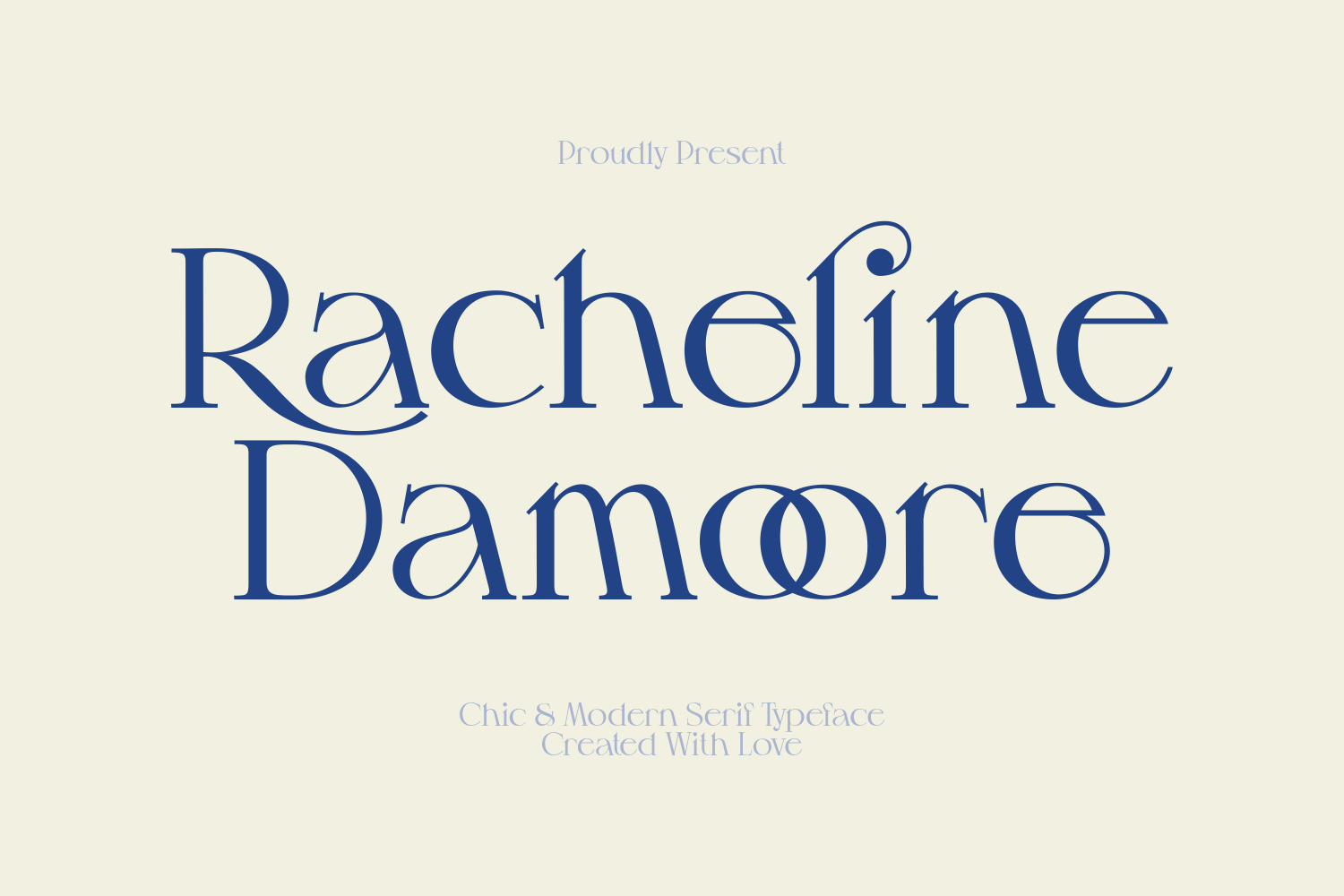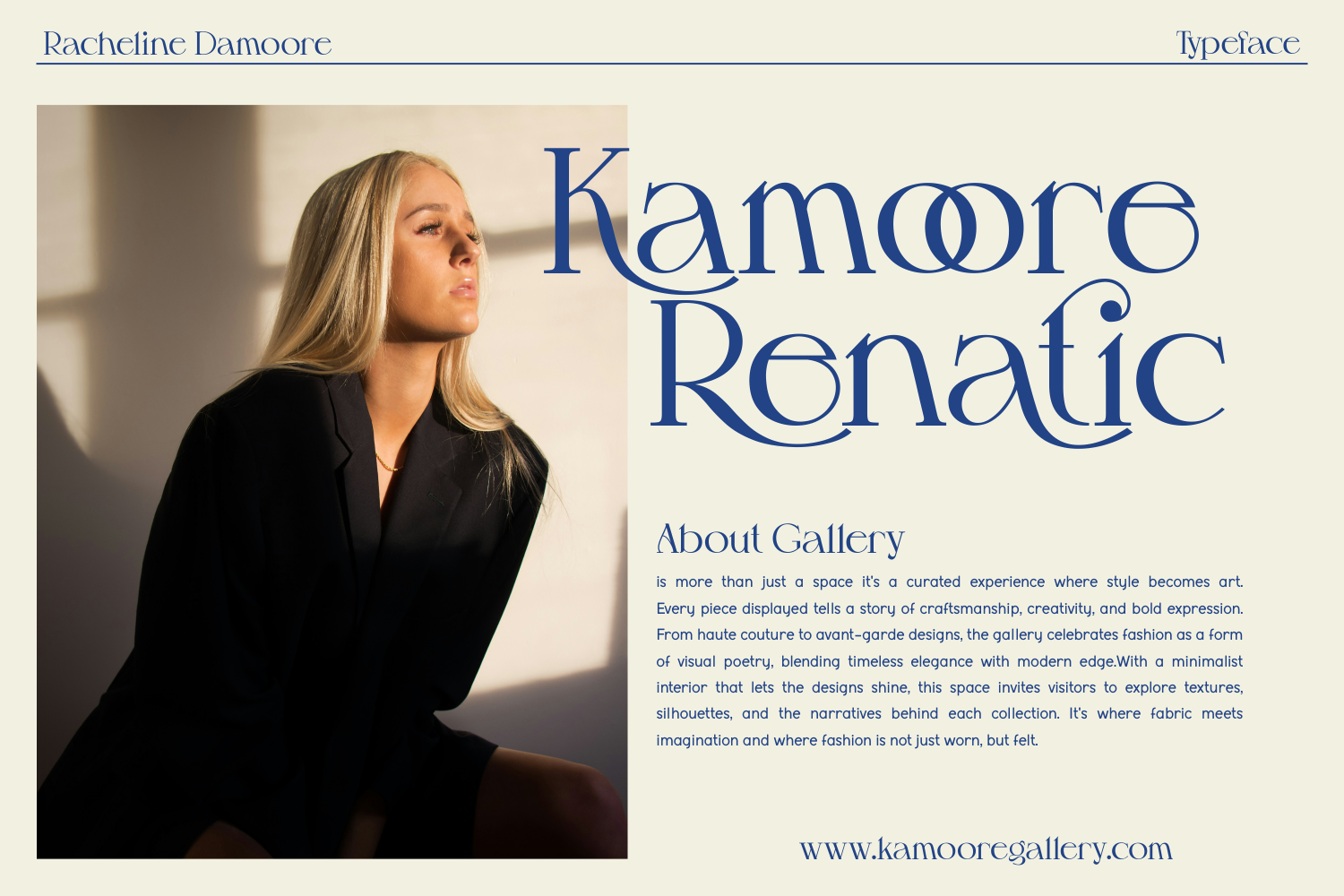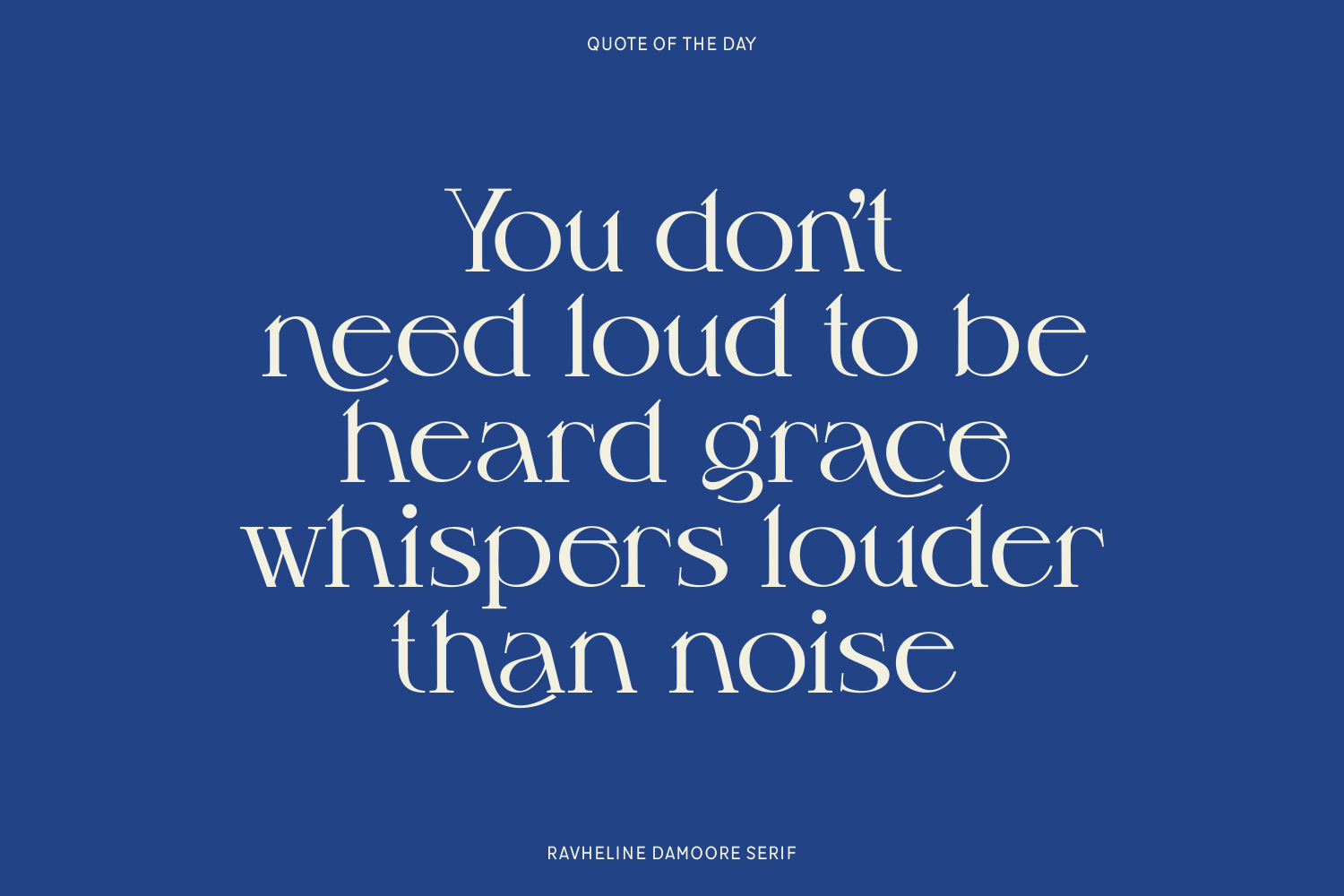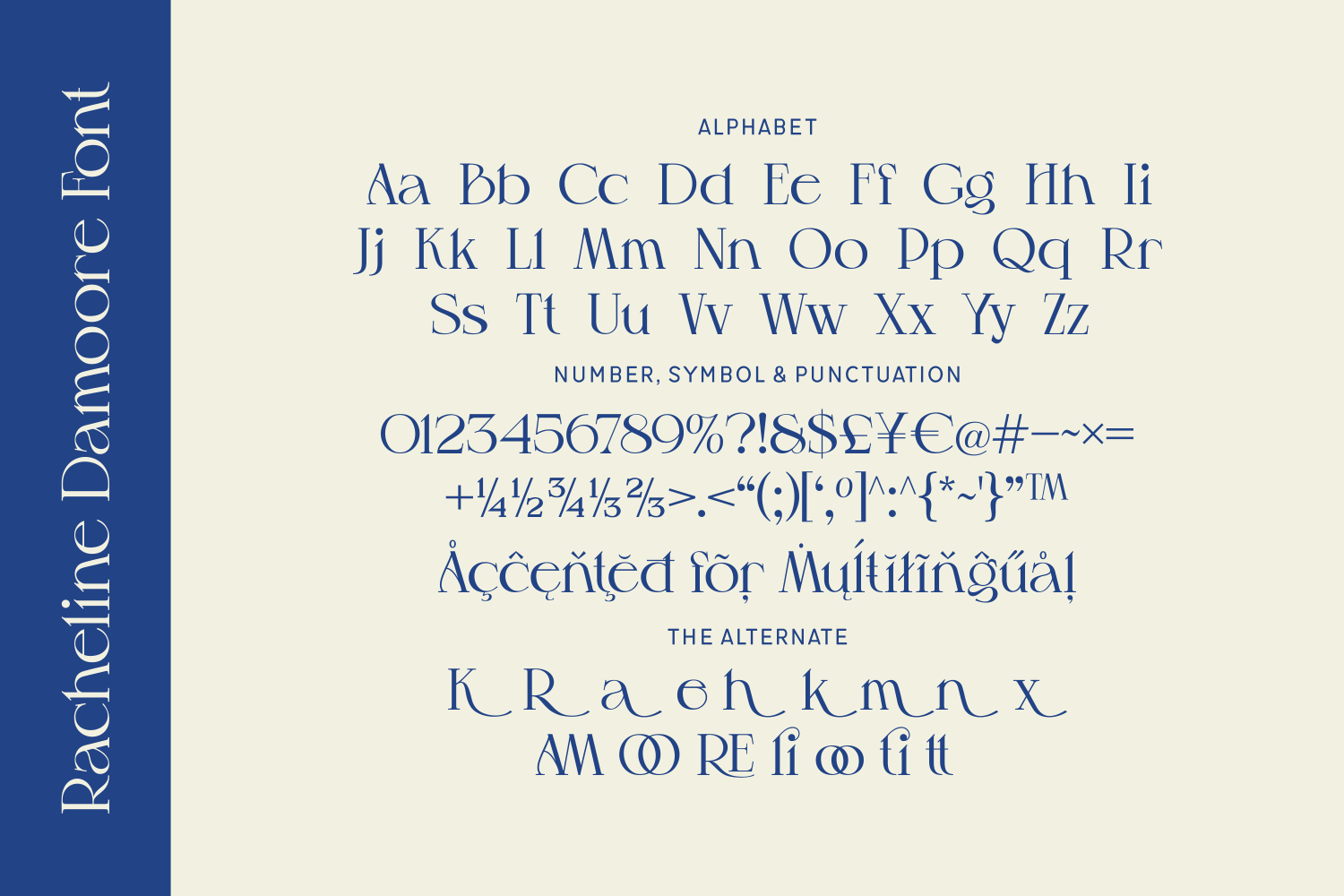
Racheline Damore is a chic and modern serif font created with artistic flair and romantic energy. Featuring inventive ligatures and sculptural letterforms, it’s ideal for boutique branding, wedding themes, fashion logos, and personal projects. It speaks elegance with a handmade soul, making every design feel curated and intentional.